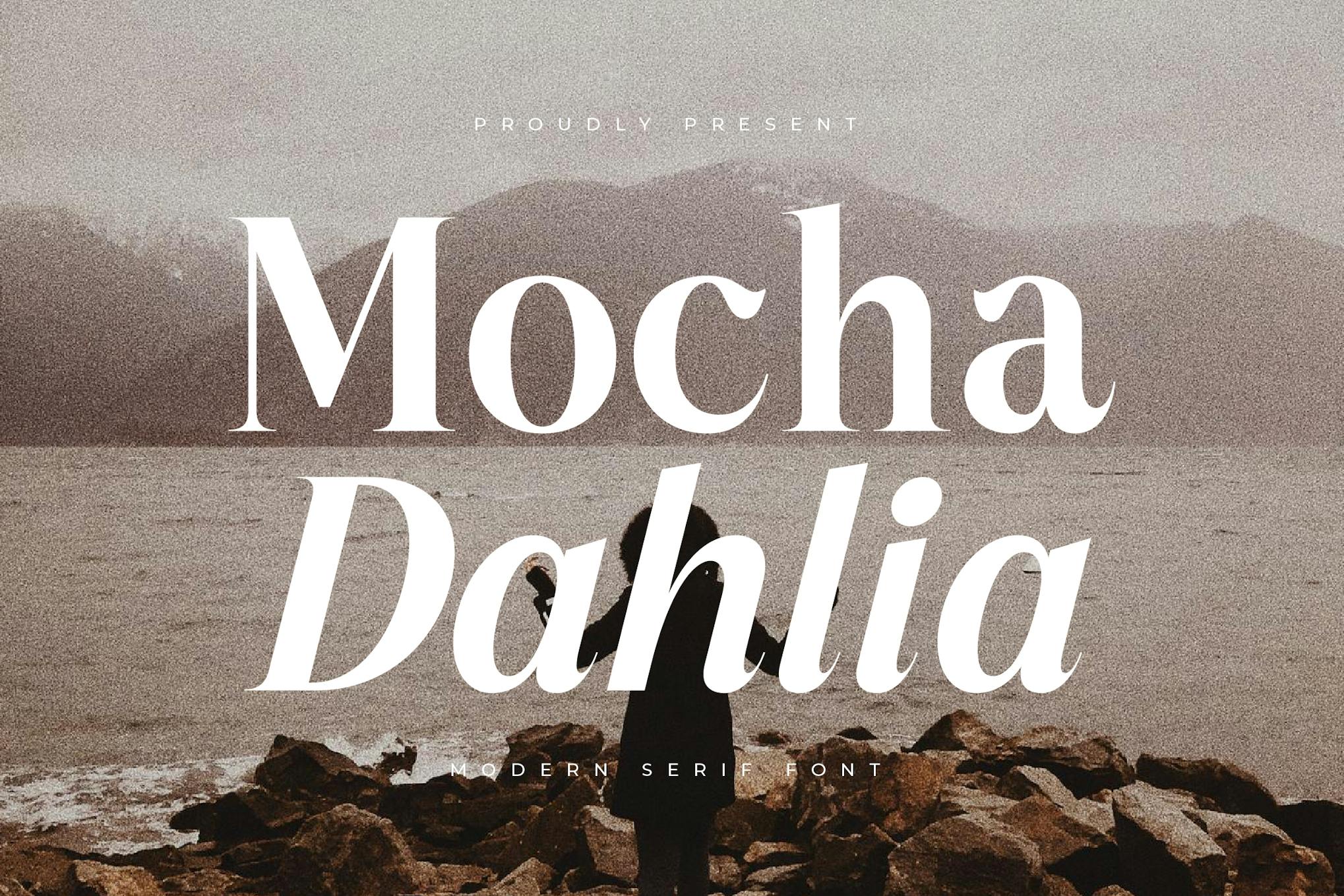
Mocha Dahlia Modern Serif Font is a stylish web font that enhances digital and print designs with its elegant serif characteristics. Designed for versatility, it offers a comfortable reading experience at any size, making it an ideal choice for various projects. Its normal spacing ensures clarity and sophistication, elevating the overall aesthetic of your creative work.